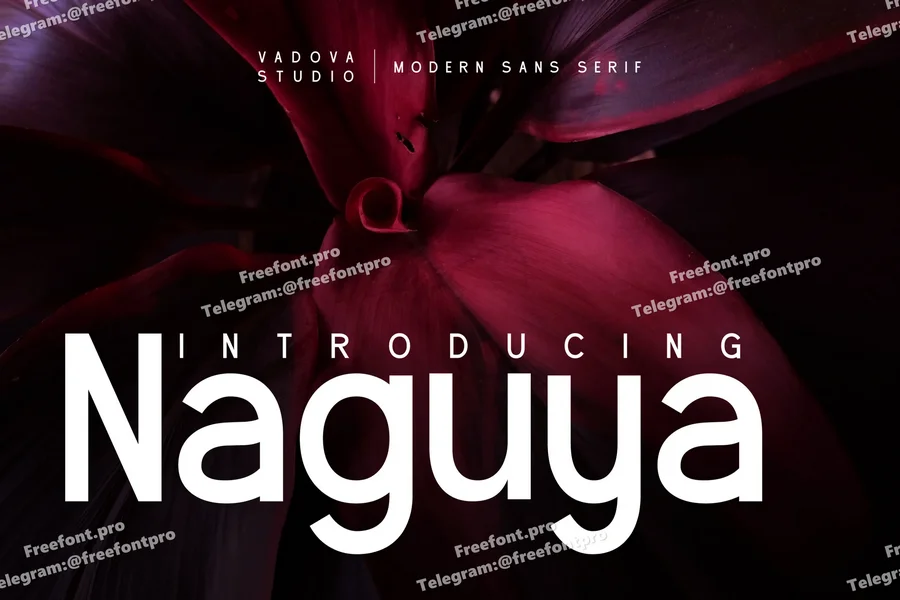
Naguya Modern Sans Serif Font
Naguya Modern Display Sans Serif Font is a modern sans serif font that combines geometric precision with elegant simplicity. Designed with clean, rounded letterforms and versatile weights, Naguya is perfect for branding, editorial design, movie titles, and product packaging. Its minimalist yet assertive style allows it to perform exceptionally well in both headlines and body text. Whether you’re designing a luxury brand identity, crafting cinematic posters, or creating digital content, Naguya offers a sleek, professional look that adapts seamlessly across various platforms.
Relevance and Use Cases Naguya is perfect for branding, logo design, editorial layout, magazine headlines, minimalist posters, movie titles, digital marketing, website headers, tech startup branding, business cards, modern packaging, product labeling, fashion brand identity, clean user interface, corporate presentations, futuristic advertising, social media visuals, art gallery promotions, film and entertainment graphics, professional portfolios.